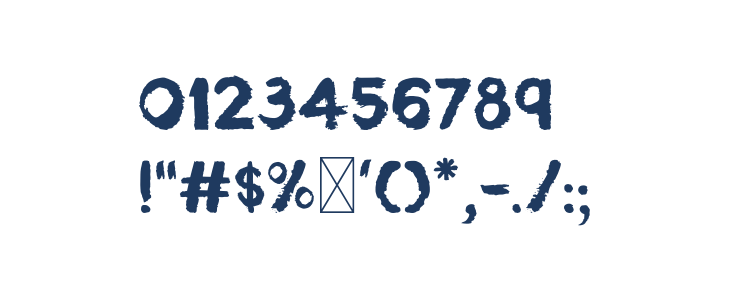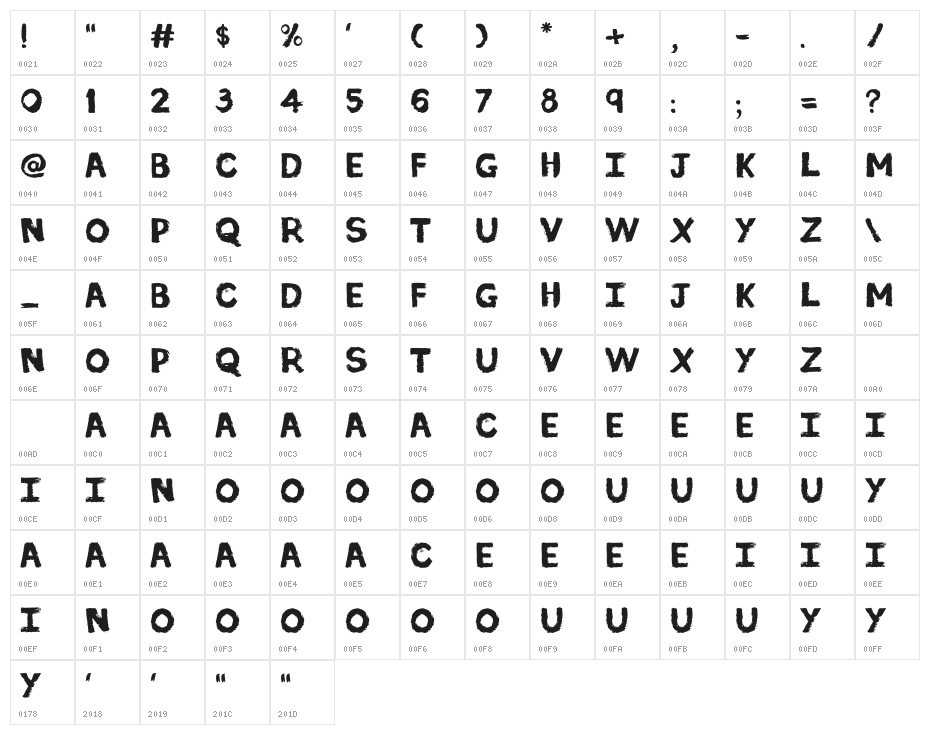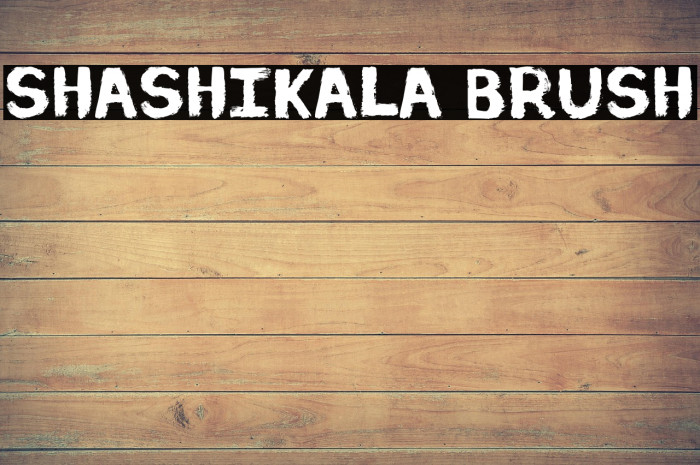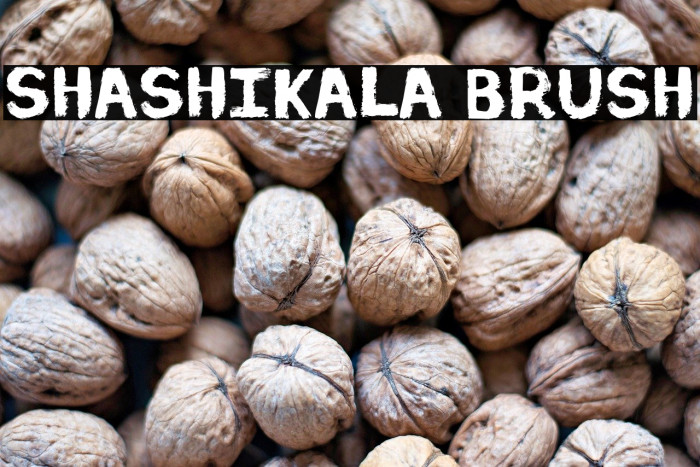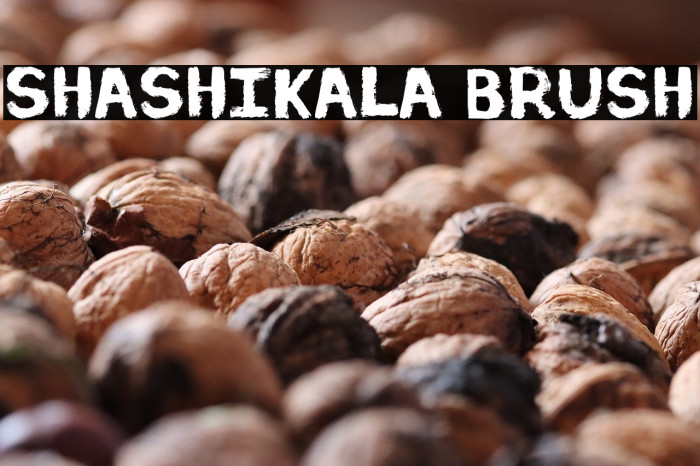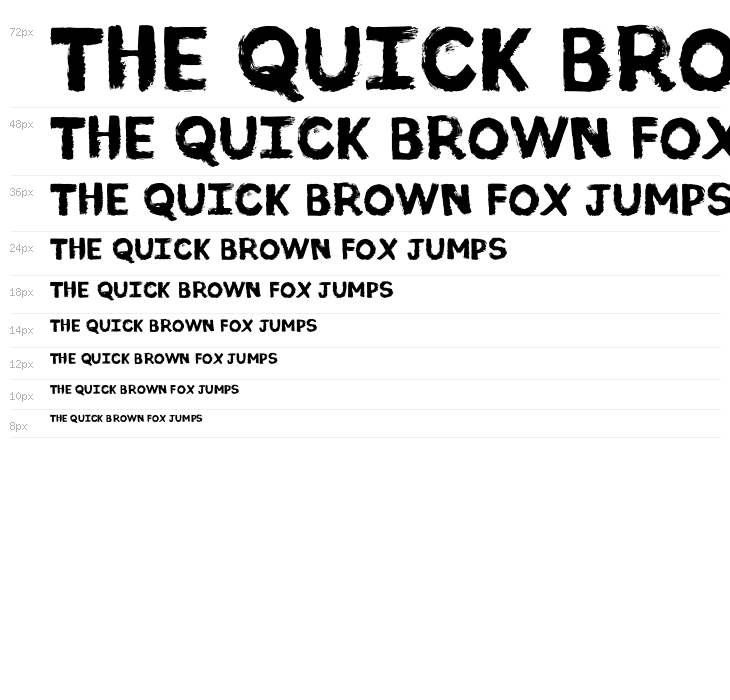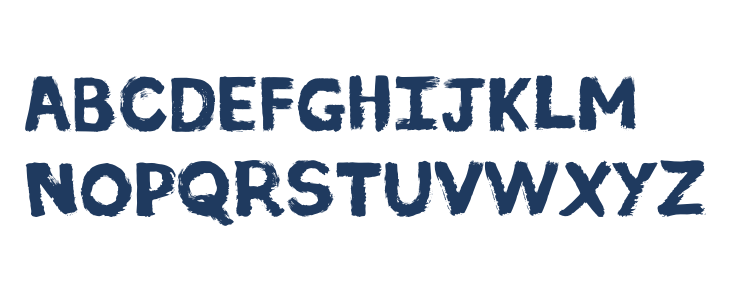
Shashikala Brush Font
Shashikala Brush Description
This font features a bold, expressive brush style that conveys a sense of energy and dynamism. The strokes are thick and textured, resembling hand-painted letters with a slightly rough edge. Each character maintains a consistent weight, contributing to a cohesive and impactful appearance. The uppercase and lowercase letters are well-defined, with a playful yet assertive presence. The numbers and special characters follow the same brush-like aesthetic, ensuring uniformity across all glyphs. This font is ideal for projects that require a strong visual impact, such as posters, branding, and creative designs.
| Proposed Projects | Ideal for posters, branding, creative designs, and any project needing a strong visual impact. |